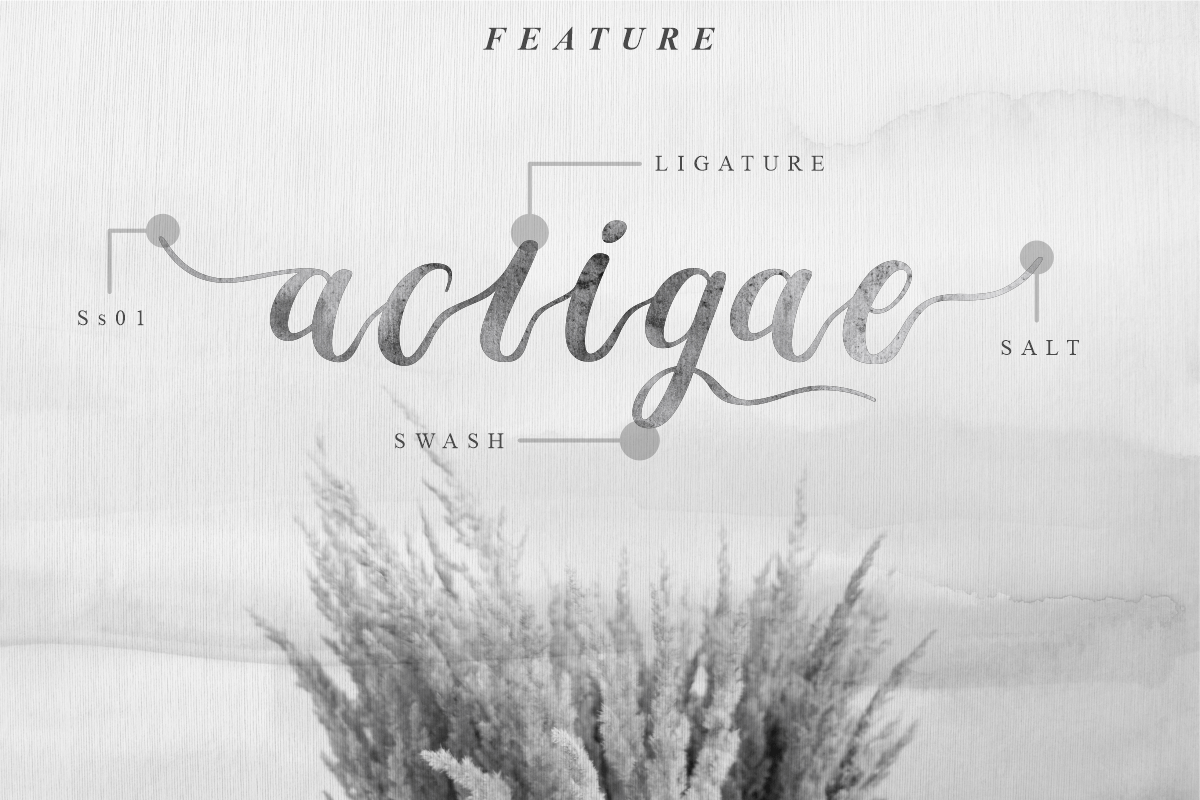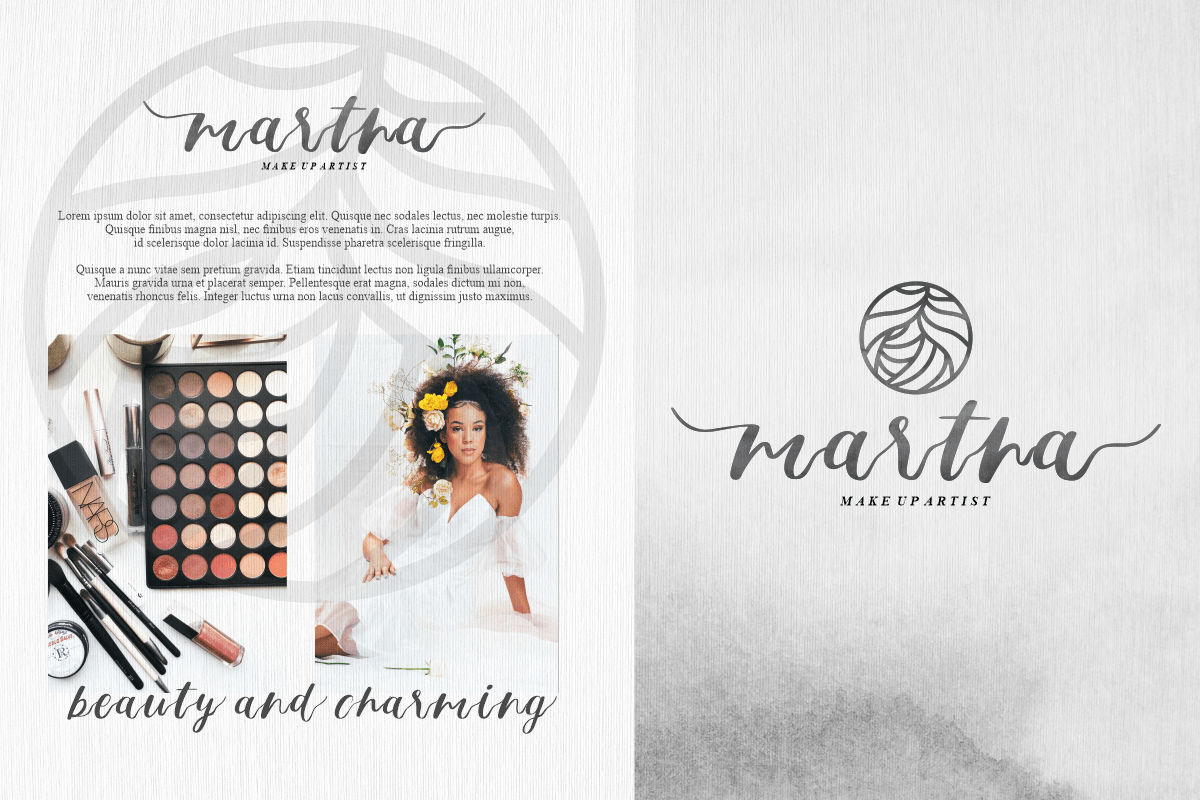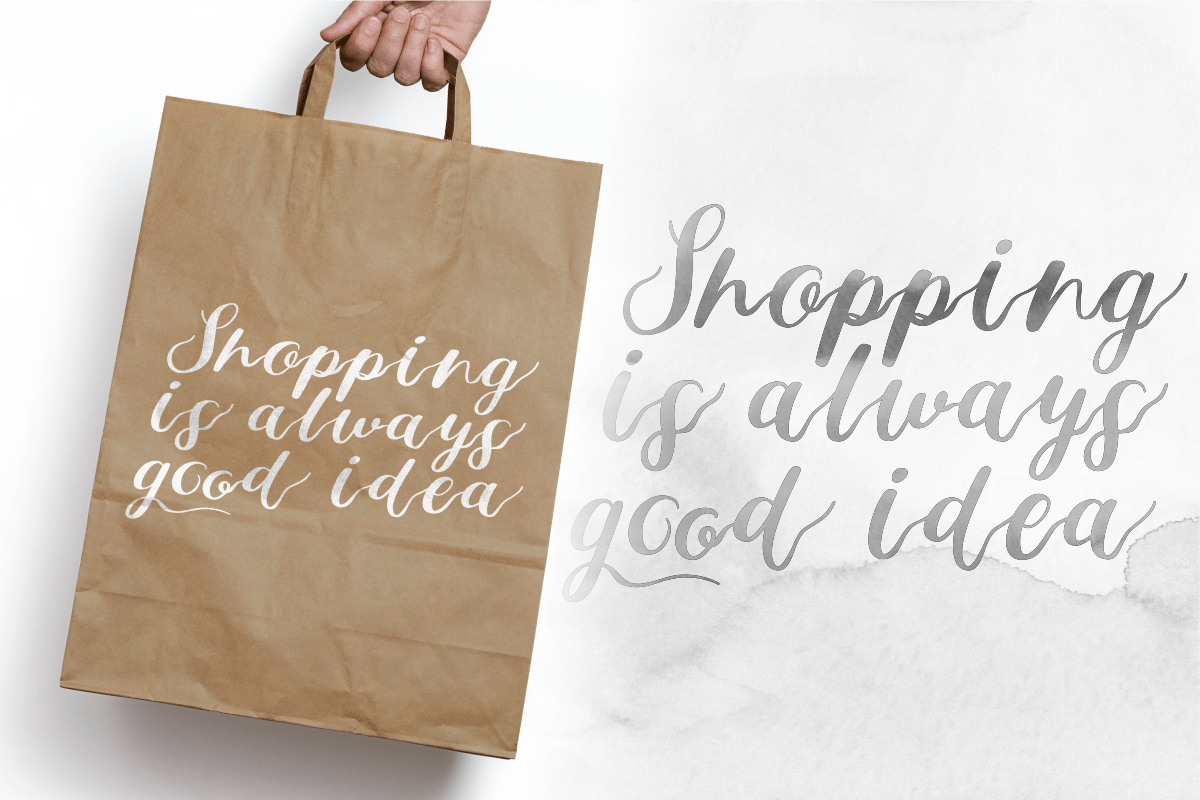
Bestiful Modern Calligraphy Font
Bestiful Modern Calligraphy Font is a font with a modern calligraphy style and free form, has a curly end, not found in other fonts. Charming and beautiful font
Bestiful Modern Calligraphy Font is perfect for branding, logos, wedding designs, social media posts, advertisements, product packaging, product designs, labels, photography, watermarks, invitations, stationery, and any project that requires a sense of beauty calligraphy style.